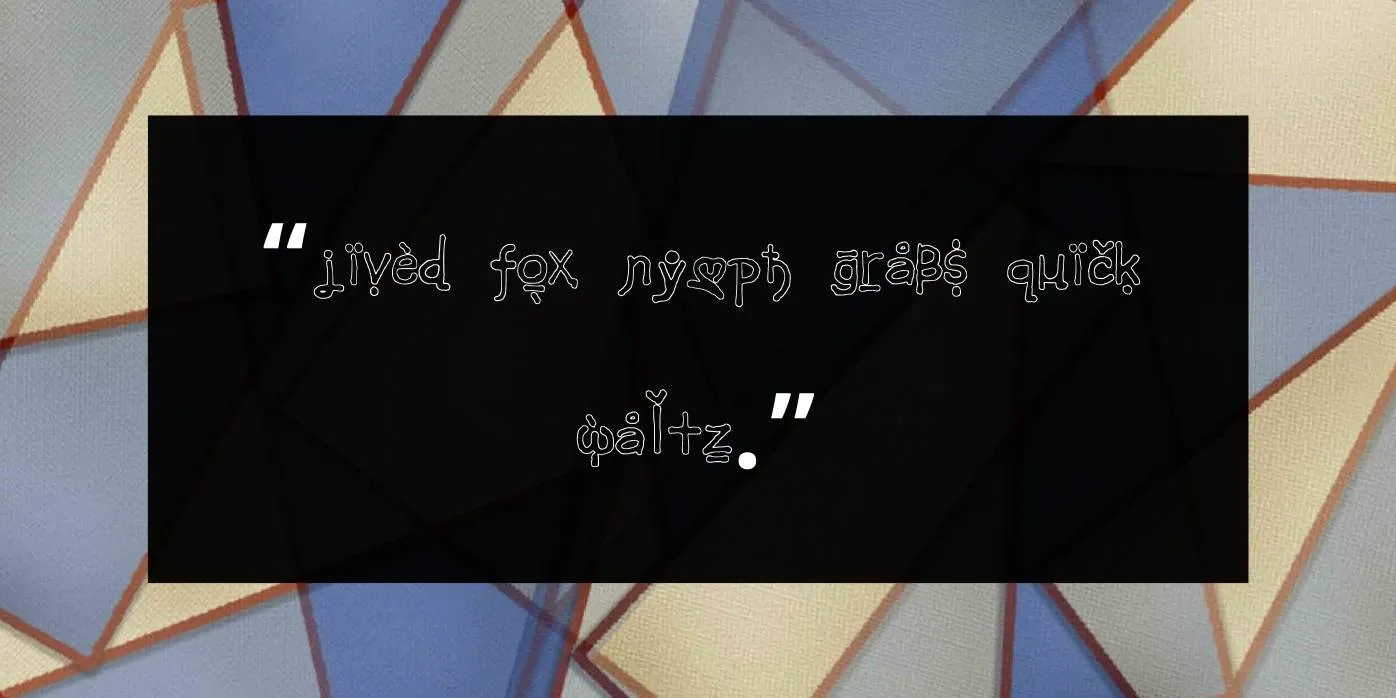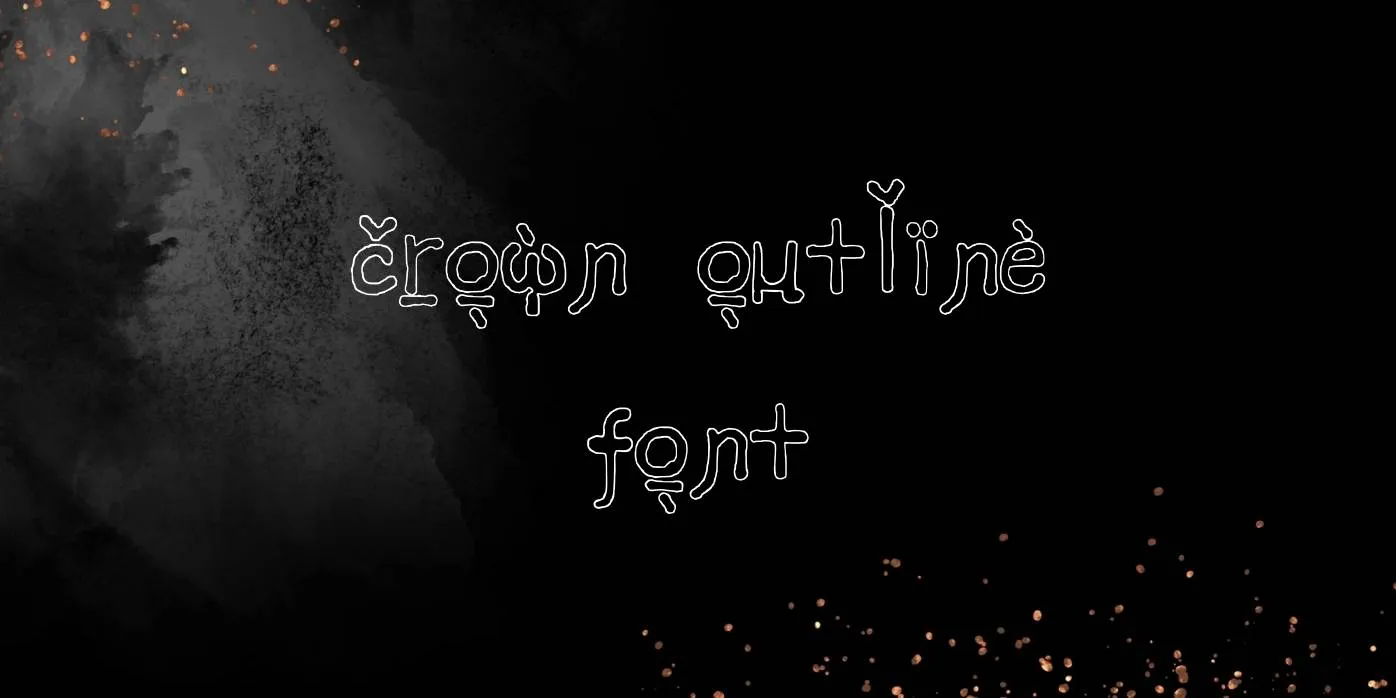
Crown Outline Font
Here we introduce a very unique and interesting typeface Crown Outline Font. This font was designed by Ryoichi Tsunekawa and published by Ryoko Nishizuka. It was inspired by an early English manuscript. It supports file formats TTF and OTF.
Unicode supported by this font is 2.0 and BMP only. The weight and the width of the font are medium and normal. To make your projects more attractive and beautiful you can pair it with other fonts like yank font. It is available in different two weights regular and Italic.
Its stylish look makes your projects more stylish and elegant. Usage This unique and amazing font is used to design many different projects. Its texture is very different as compared with other fonts. You can make headlines for different classy projects.
It is also considered a good font for making banners, posters, and flyers. It can be used to design different styles of logos and titles for different brands, movies, and TV shows. You can make designs in Adobe Photoshop, Canva, and CSS by using this font. For coding this font is also a good choice and you can make designs in Corel Draw by using this font.
It is a very nice and decorative font. You can make many different projects by using this font. This font is designed by Ryoichi Tsunekawa and manufactured by Ryoko Nishizuka. Is Crown Outline Font free?